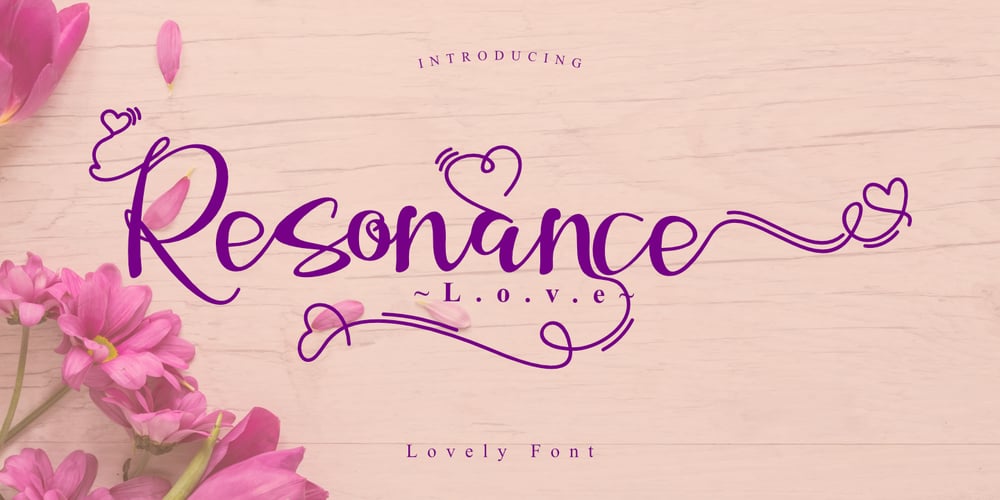
Resonance Love Font Family was designed by Stephanus Prabowo and published by Andrey Font Design. Resonance Love contains 1 styles and family package options. Resonance Love is a romantic and natural handwritten font, featuring beautiful hearts as ornaments. It is ideal for valentine-themed greeting cards, weddings, and any crafting projects that require a warm touch. This font is PUA encoded which means you can access all of the glyphs and swashes with ease!